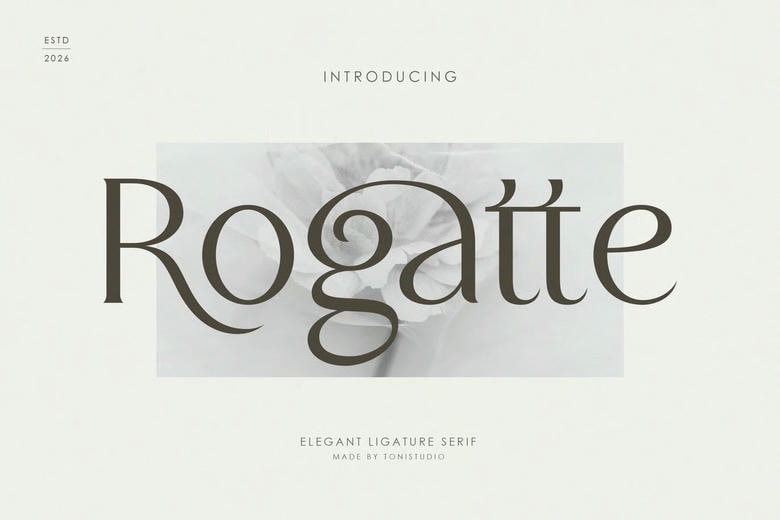
Rogatte Font
Rogatte Font is a beautiful ligature serif typeface designed to be used in high-end branding, editorial design, and luxury visual identities. With its elegant contrast, elegant curves, and unique uppercase alternates, Rogatte adds a high-end and artistic touch to any composition. This typeface is created with a heavy emphasis on stylistic ligatures and expressive letterforms, and is ideal in logos, fashion magazines, wedding invitations, and high-end packaging.
Every character is well-crafted to produce a smooth flow and classical beauty, particularly in all-caps environments where its alternative forms are really luminous. Rogatte is a combination of traditional serif and contemporary editorial design, which makes it a flexible option among designers who want to be unique, luxurious, and visually appealing. Perfect for:Luxury branding, fashion editorials, logos, wedding designs, social media, packaging, and high-end typography projects.